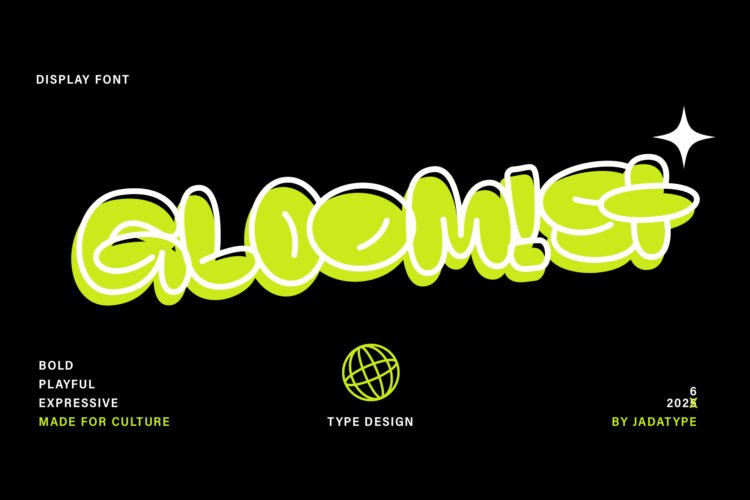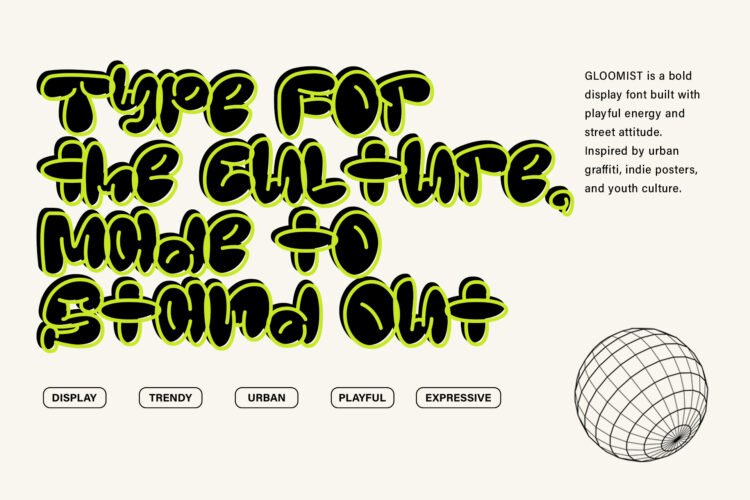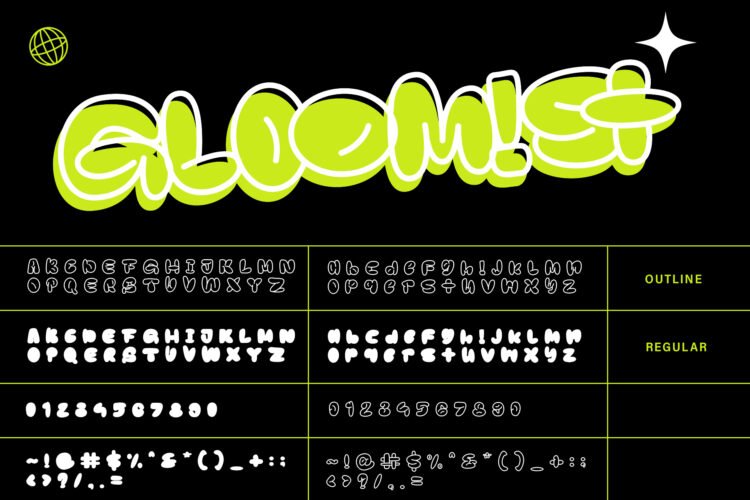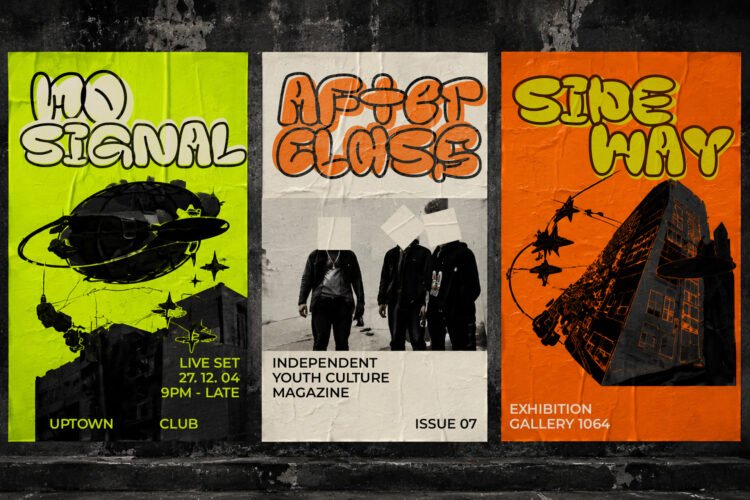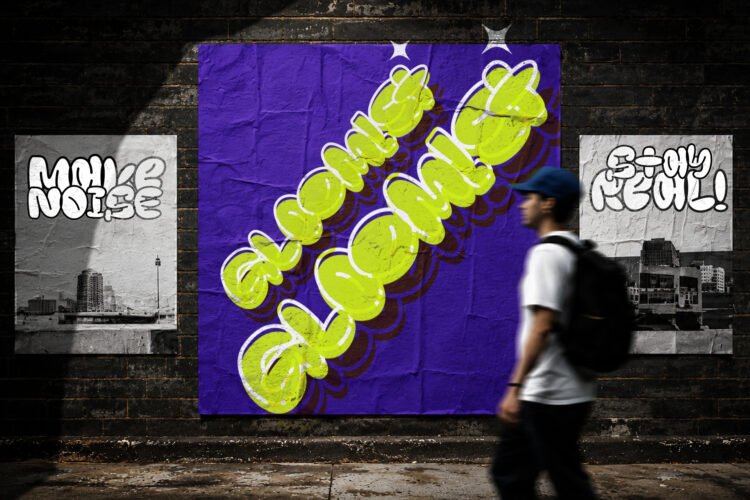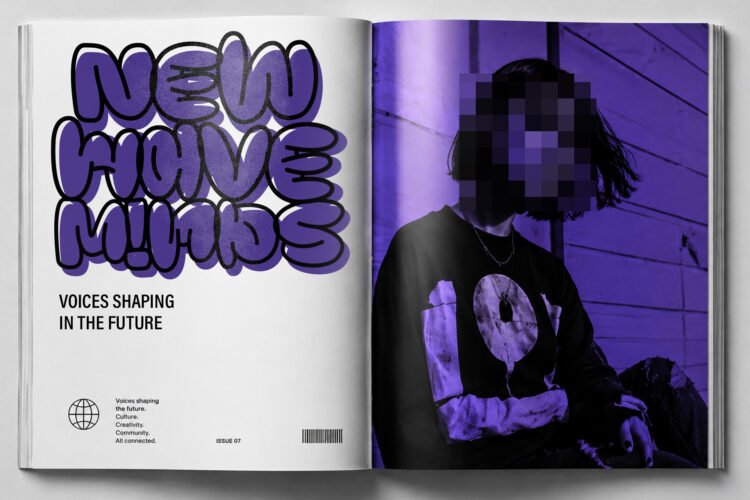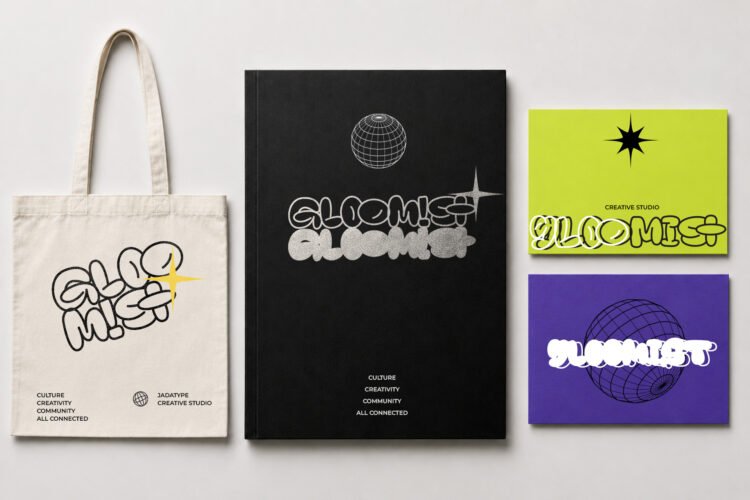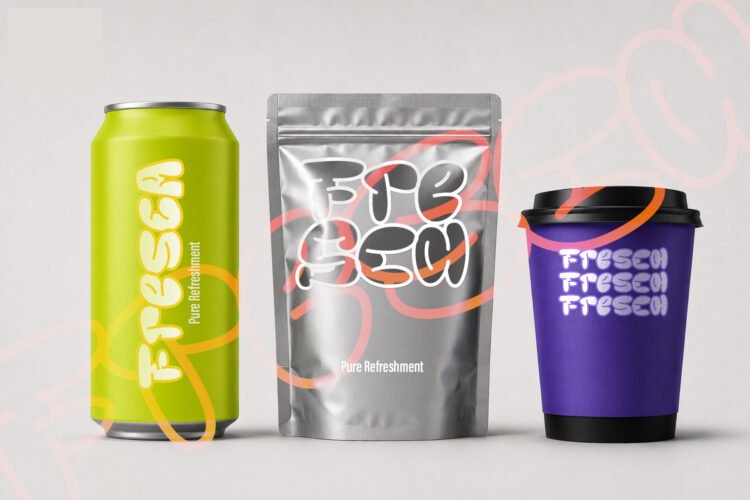
Gloomist is a bold and playful display font that combines chunky bubble forms with a lively graffiti-inspired character. Its exaggerated curves, rounded shapes, and energetic presence give typography a fun, youthful attitude while keeping the letters highly noticeable in large display settings.
Perfect for branding, logo design, posters, advertising graphics, social media designs, event promotions, headlines, packaging, and other projects that need a cheerful and attention-grabbing typographic style. The family offers both solid and outline treatments, giving designers more flexibility when creating colorful and expressive compositions. Designed by Jada Akbal and published by Jadatype.
• Standard uppercase and lowercase letters\
• Numbers and basic punctuation\
• Chunky bubble and graffiti-inspired letterforms\
• Several accented characters for multilingual support\
• Styles included: Gloomist Regular & Gloomist Outline